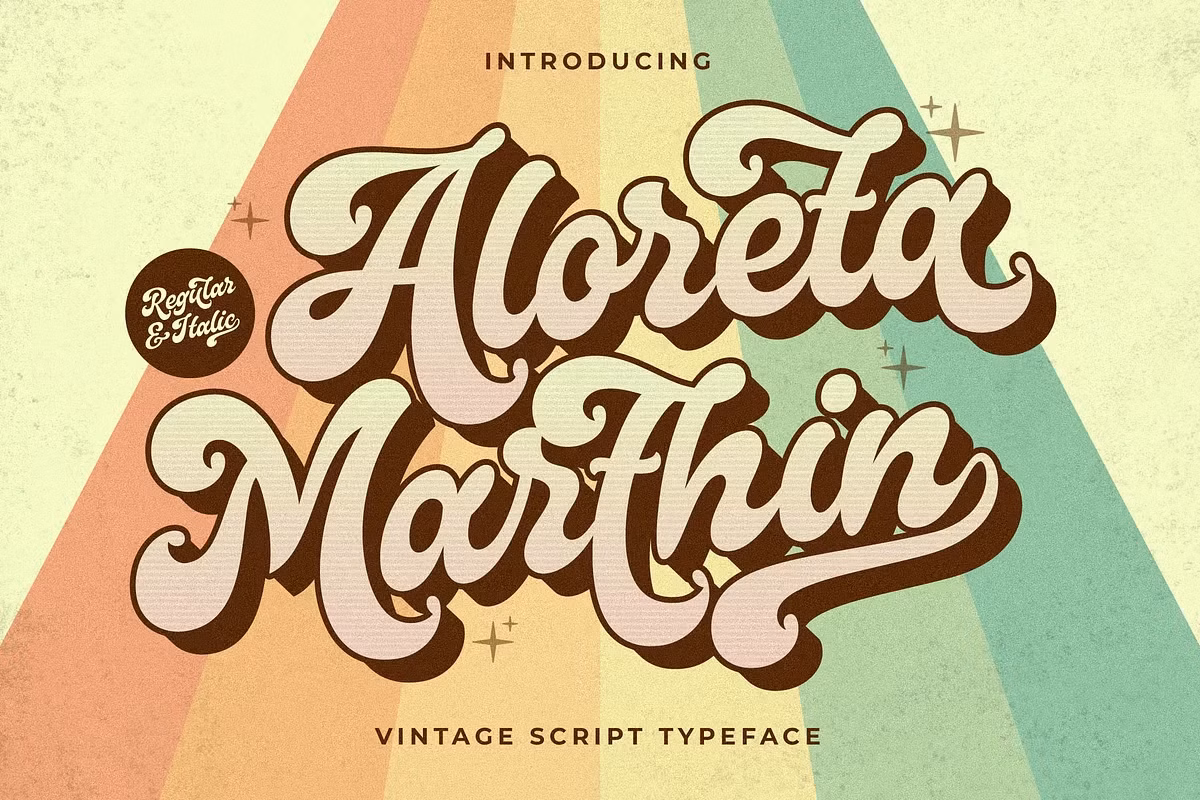
You must purchase this font for commercial use. However, you can download Aloreta Marthin Vintage Script Font Free Download for testing purposes. Aloreta Marthin is a beautifully crafted vintage script font that captures the essence of classic hand-lettering with a touch of retro elegance. Perfect for logo designs, nostalgic branding, wedding stationery, product packaging, and stylish quotes, this font brings a timeless charm and sophisticated personality to any creative project.
With its smooth curves, detailed swashes, and authentic retro vibe, Aloreta Marthin exudes warmth and artistry. The font includes stylistic alternates and ligatures, giving you full control over the look and feel of your typography. Whether you're aiming for a romantic, vintage aesthetic or a bold, script-style logo, Aloreta Marthin Vintage Script Font Free Download is the ideal tool to test out your vision. Be sure to purchase a proper license before using it for any commercial application. Download Aloreta Marthin Vintage Script Font Free Download today and add a classic, handcrafted flair to your next design.